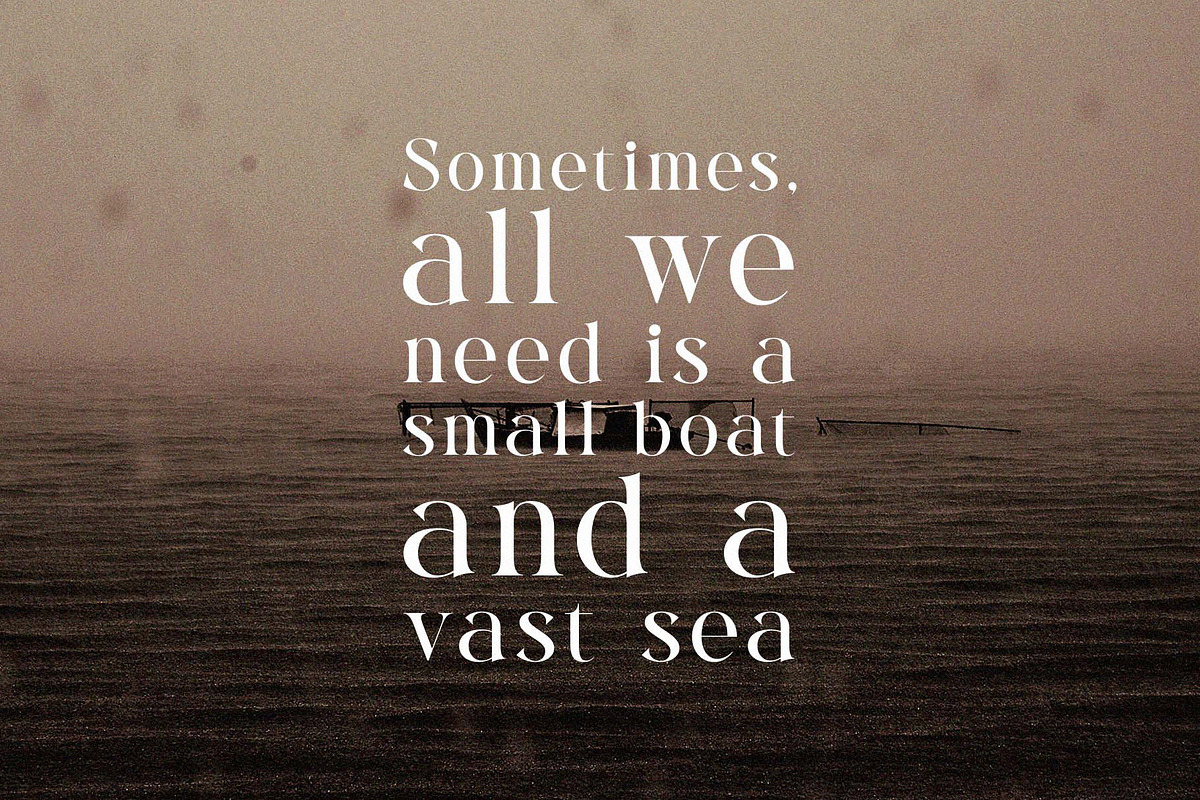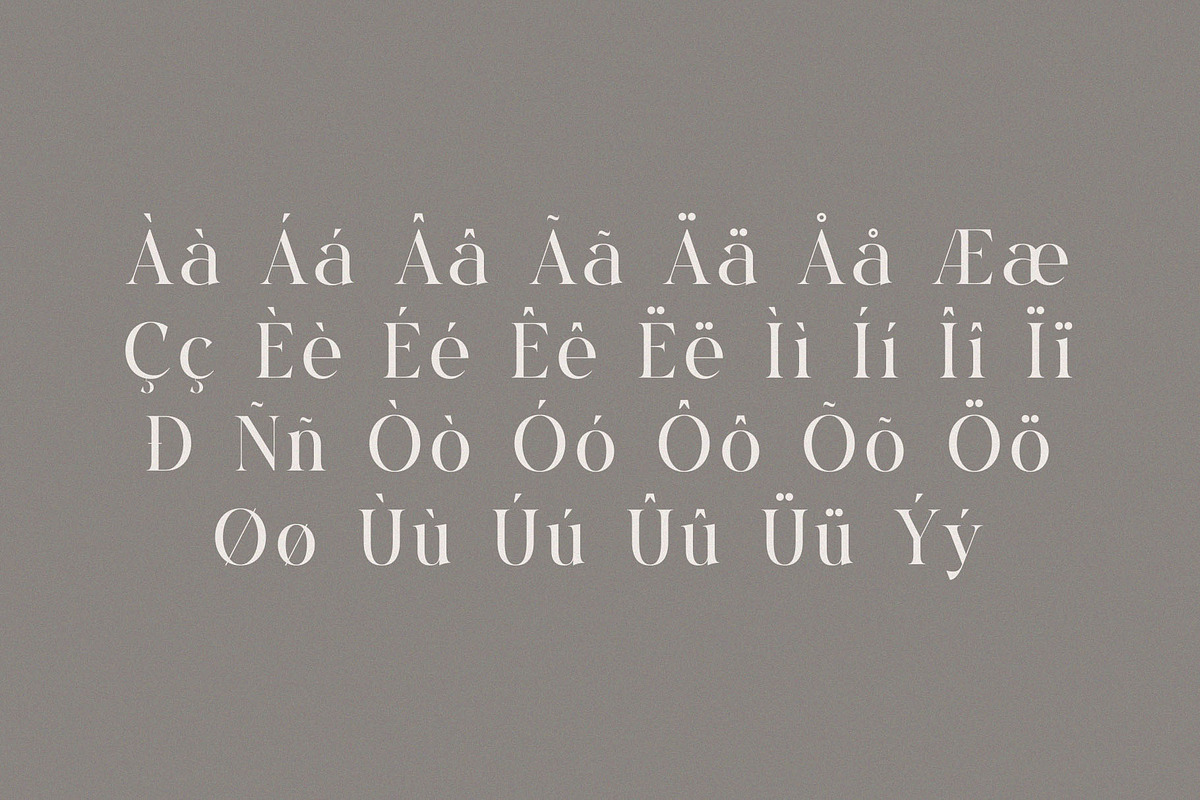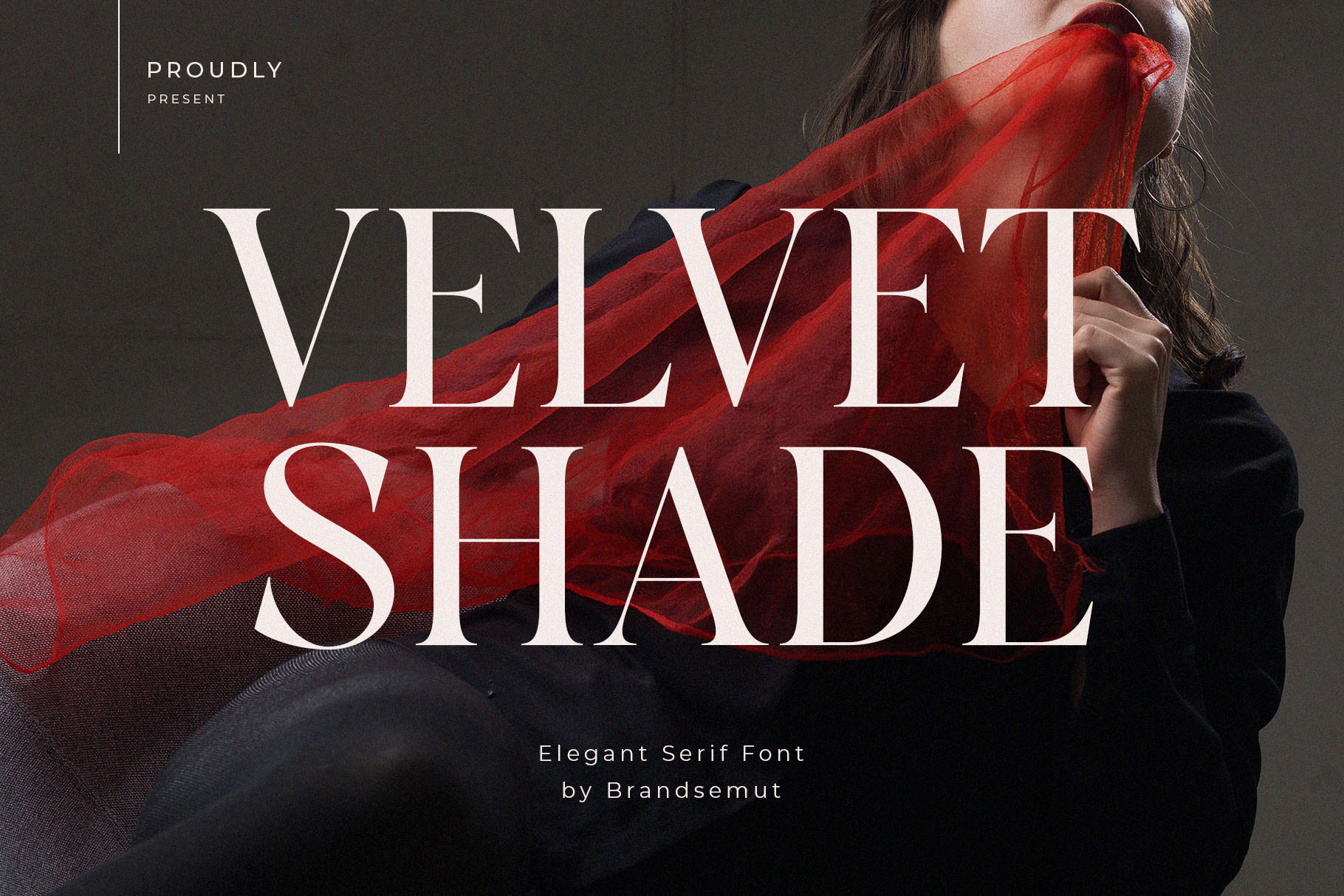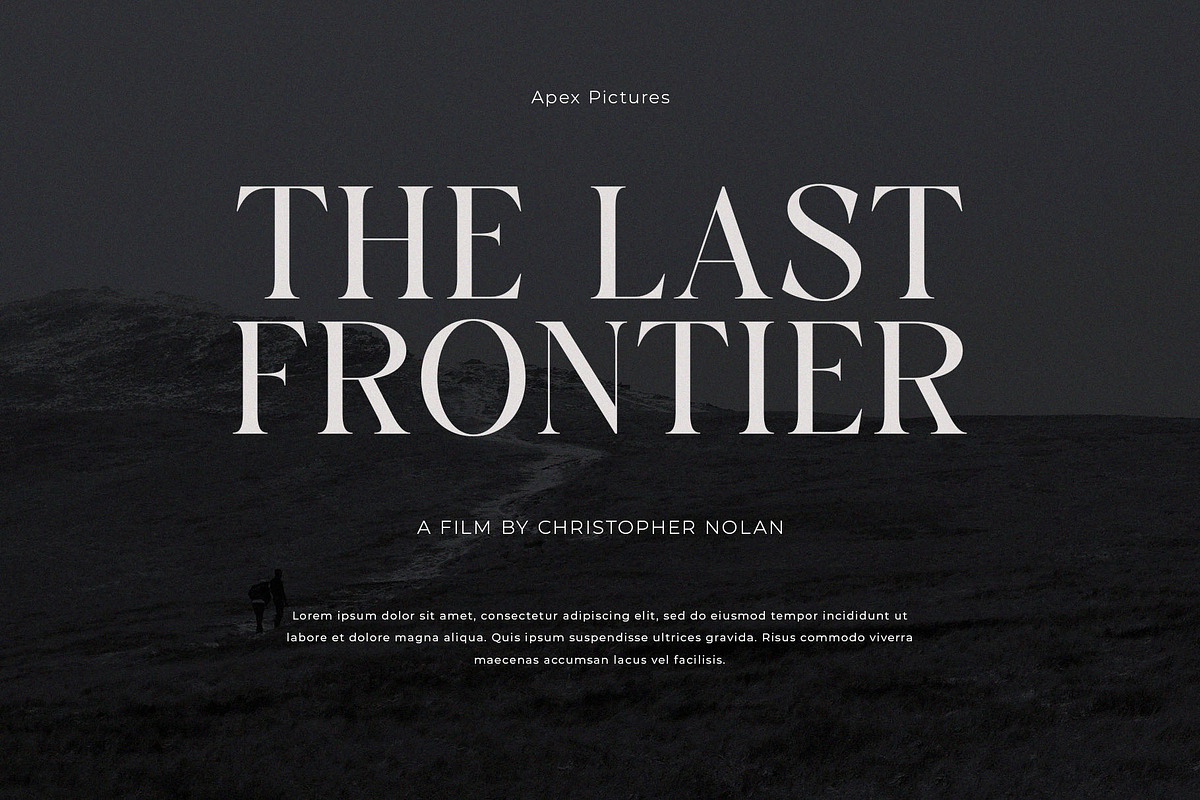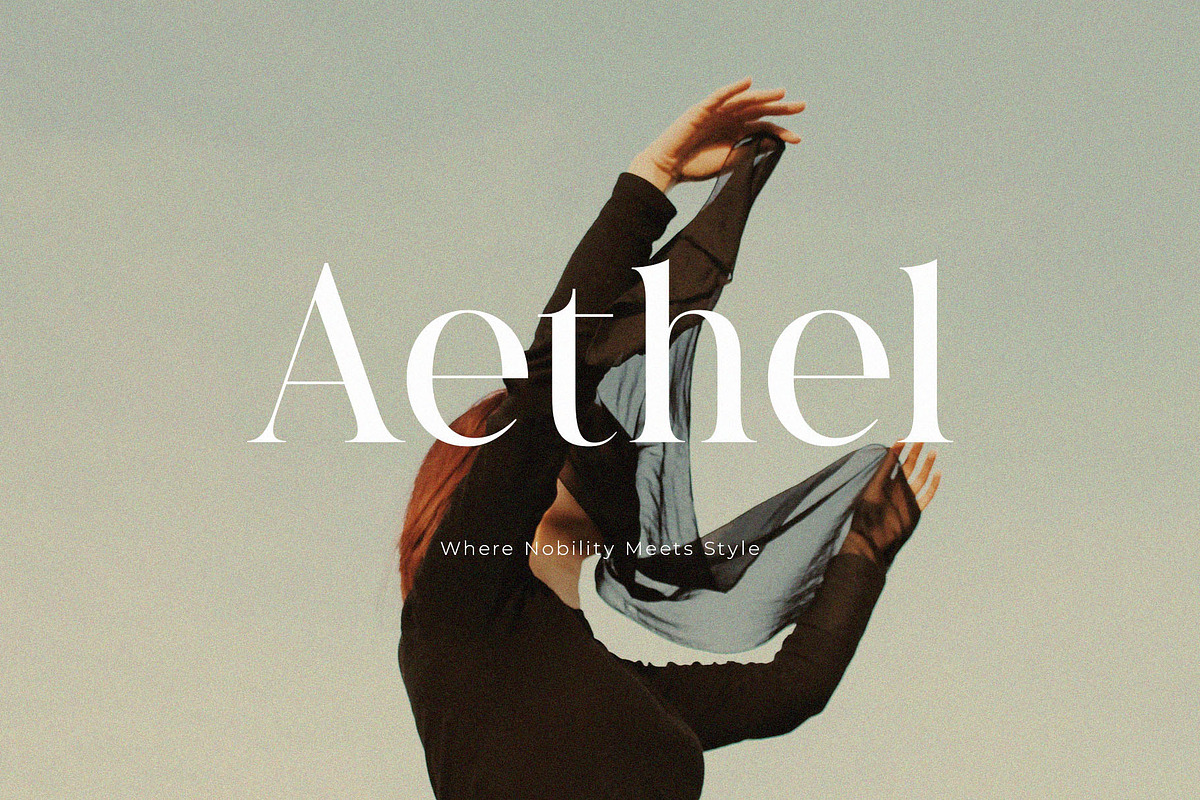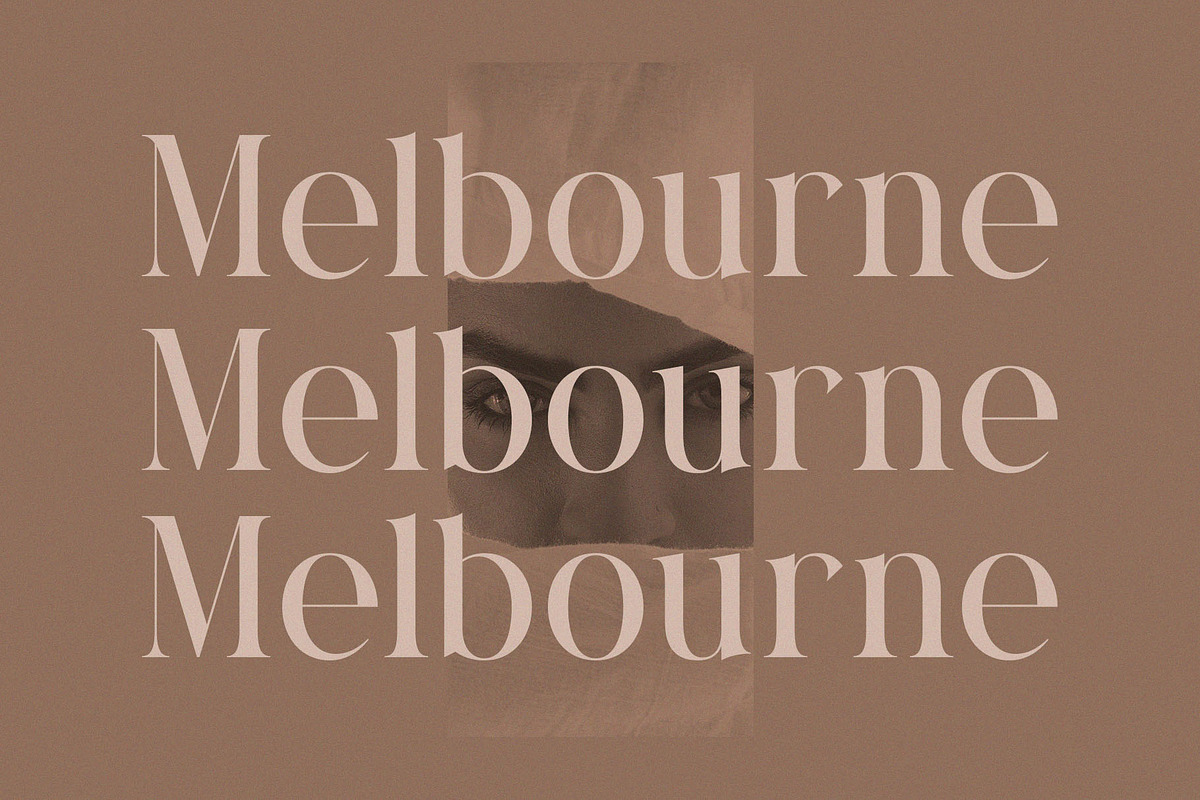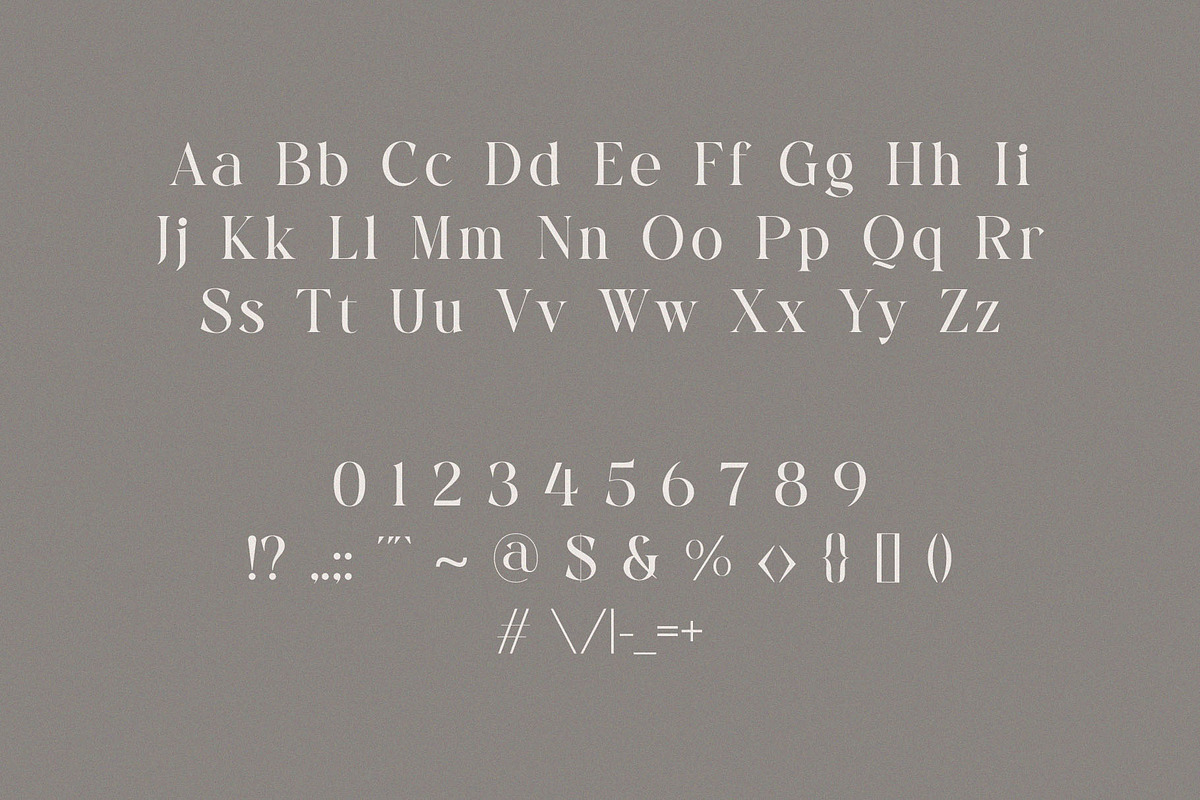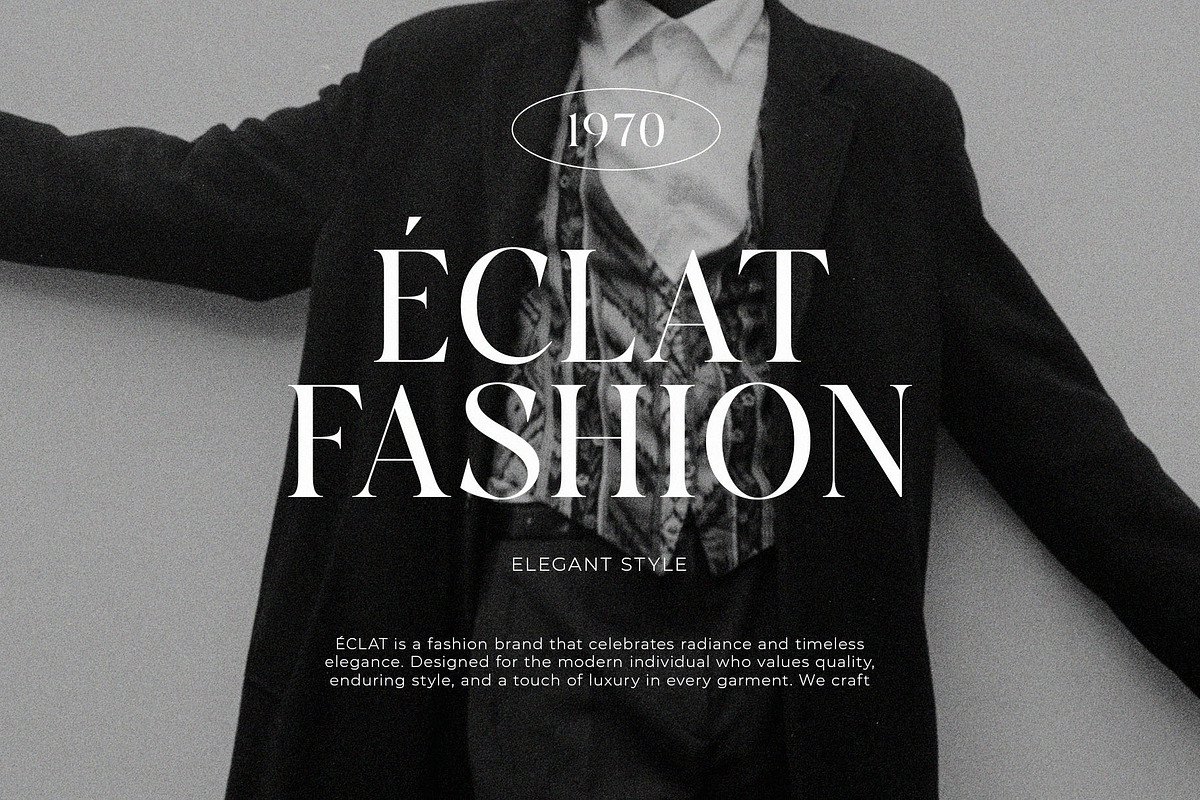
Velvet Shade – Elegant Serif Font
Velvet Shade – Elegant Serif Font with Uppercase & Lowercase for Fashion Branding & Editorial Design
Velvet Shade is a refined and luxurious serif font crafted for designers who crave timeless elegance and artistic presence. Featuring full uppercase and lowercase characters, Velvet Shade combines high contrast strokes, graceful curves, and sharp serifs that elevate any visual composition.
Perfect for fashion editorials, beauty branding, upscale packaging, and wedding invitations, this font brings depth, drama, and sophistication to your work — just like a red velvet curtain drawn back to reveal something captivating.
Best suited for:
- High-fashion branding & beauty logos
- Magazine titles & editorial spreads
- Elegant wedding stationery
- Classy social media posts & lookbooks
- Premium product labels & packaging
- Uppercase & lowercase alphabets
- High-contrast elegant serif structure
- Ligatures and refined curves
Let Velvet Shade wrap your typography in elegance and timeless allure, delivering a sophisticated statement in every character.